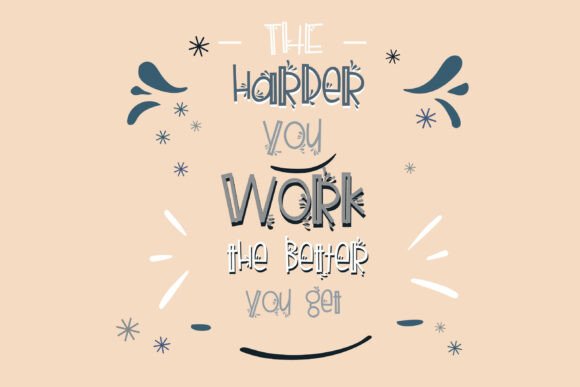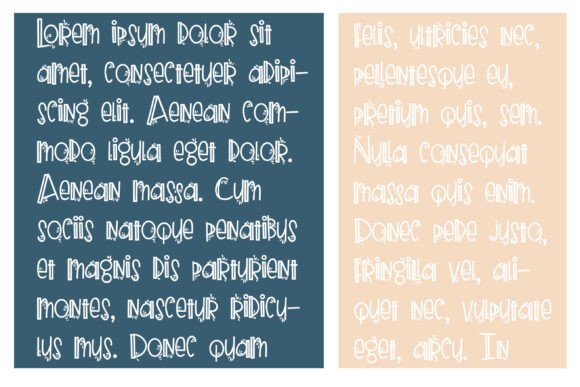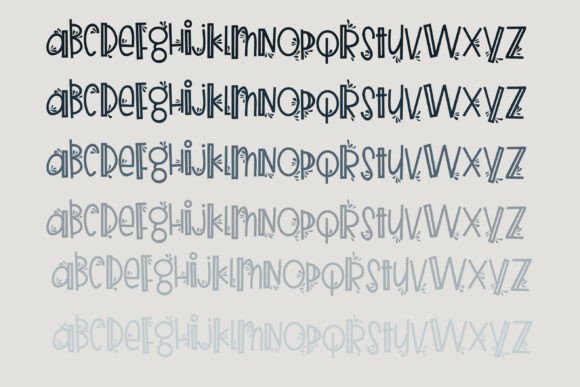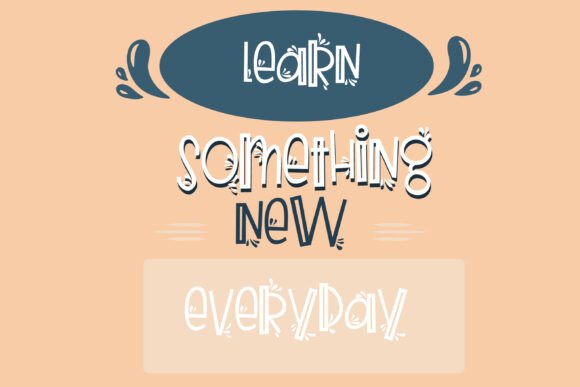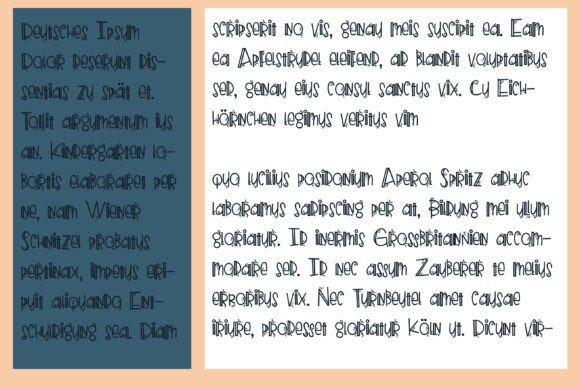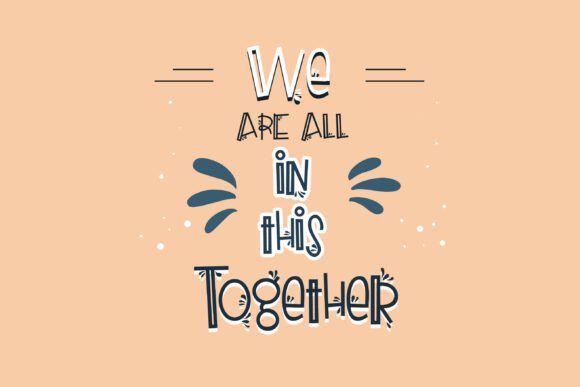
Discover the Emotional Beauty of Cry Baby Font
In the world of typography, few fonts capture the essence of emotional expression as beautifully as Cry Baby. This poignant display typeface is designed to convey a sense of sentimental and stylized soulfulness, making it the perfect choice for creatives looking to add a touch of elegance and whimsy to their designs. With its unique blend of clean vertical lines and organic, weeping details, Cry Baby is a font that will make your work stand out.
The Inspiration Behind Cry Baby
Cry Baby is a font that embodies the beauty of emotional breakdown. Its design is inspired by the idea of embracing the sentimental and the stylized, creating a sense of connection with the viewer. The font features narrow, handwritten letterforms that are elegantly adorned with rhythmic “teardrop” flourishes and delicate spray motifs. These intricate details add a touch of sophistication and whimsy, making Cry Baby a versatile font for a wide range of design applications.
Key Features of Cry Baby Font
So, what makes Cry Baby font so special? Here are some of its key features:
- Narrow, handwritten letterforms: Cry Baby’s letterforms are designed to be elegant and refined, with a narrow, condensed style that adds a touch of sophistication to any design.
- Rhythmic “teardrop” flourishes: The font’s teardrop flourishes add a touch of whimsy and emotional depth, creating a sense of connection with the viewer.
- Delicate spray motifs: The delicate spray motifs that adorn the letterforms add a touch of organic elegance, creating a sense of movement and fluidity.
- Clean vertical lines: The font’s clean vertical lines provide a sense of stability and structure, balancing out the more organic details.
Design Applications for Cry Baby Font
Cry Baby font is a versatile typeface that can be used in a wide range of design applications. Here are some ideas to get you started:
- Independent indie-pop album covers: Cry Baby’s unique blend of elegance and whimsy makes it the perfect choice for indie-pop album covers.
- Expressive stationery branding: The font’s emotional depth and sophistication make it a great choice for stationery branding, adding a touch of personality to any design.
- Modern nursery wall art: Cry Baby’s delicate details and whimsical flourishes make it a great choice for modern nursery wall art, adding a touch of sweetness and charm.
- High-impact social media headers: The font’s bold, expressive style makes it perfect for social media headers, adding a touch of drama and emotional depth to any design.
Why Choose Cry Baby Font?
So, why choose Cry Baby font for your next design project? Here are just a few reasons:
- Unique and expressive: Cry Baby is a one-of-a-kind font that will add a touch of personality and emotional depth to any design.
- Versatile: The font’s versatility makes it suitable for a wide range of design applications, from album covers to stationery branding.
- Elegant and whimsical: Cry Baby’s unique blend of elegance and whimsy makes it a great choice for creatives looking to add a touch of sophistication and charm to their designs.
In conclusion, Cry Baby font is a poignant display typeface that captures the essence of emotional expression. With its unique blend of clean vertical lines and organic, weeping details, Cry Baby is the perfect choice for creatives looking to add a touch of elegance and whimsy to their designs. Whether you’re working on an indie-pop album cover, expressive stationery branding, modern nursery wall art, or high-impact social media headers, Cry Baby font is sure to make your work stand out.